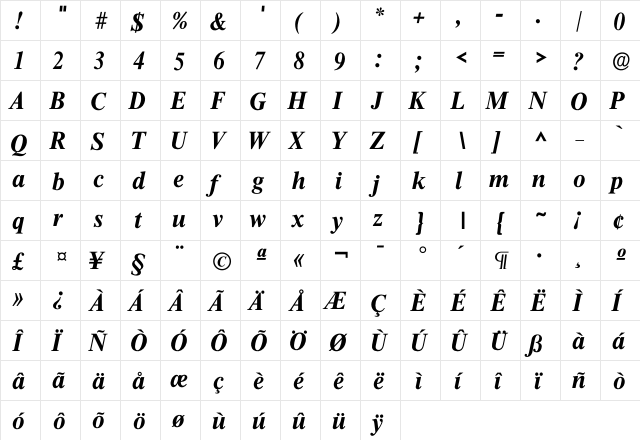
Itimes Bold
Design Context for Itimes Typeface
Itimes is a composed and adaptable typeface that performs quietly and consistently across a wide range of design contexts. Its bold stroke weight gives it real presence on the page.
Pro Tip: Pair Itimes with a font of contrasting weight or personality to build a more expressive typographic hierarchy.